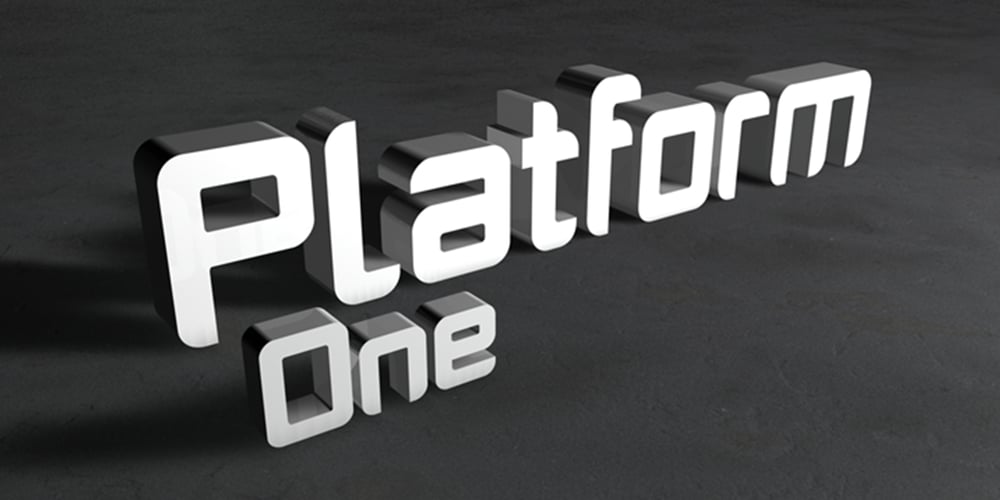
PlatformOne Font Family was designed by Jonathan Hill and published by The Northern Block. PlatformOne contains 10 styles and family package options. PlatformOne is a 10 font family consisting of 5 weights with italics. A clean geometric font with precise corners inspired by commuter travel on Britain’s public transport networks.